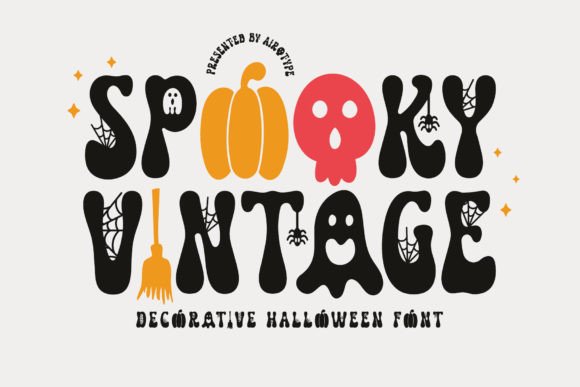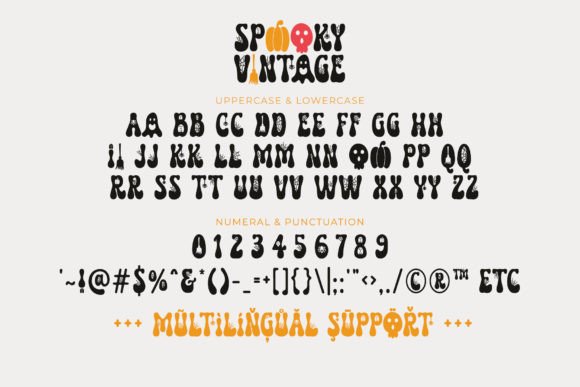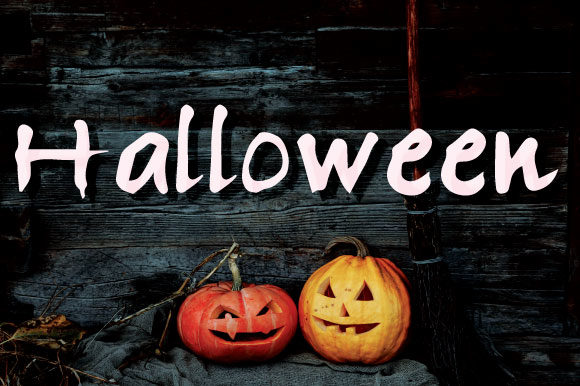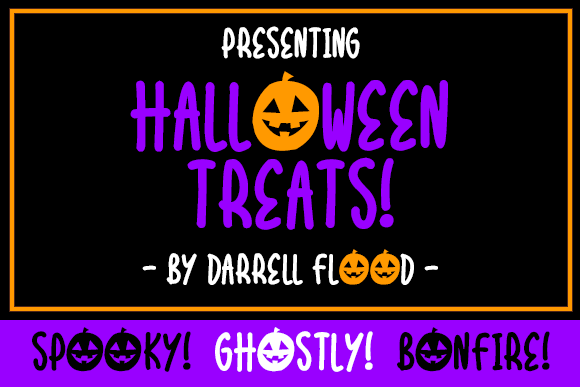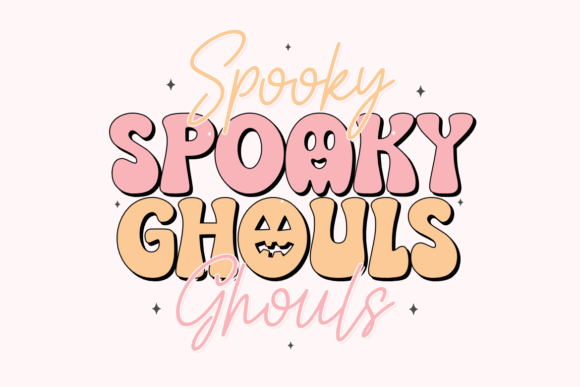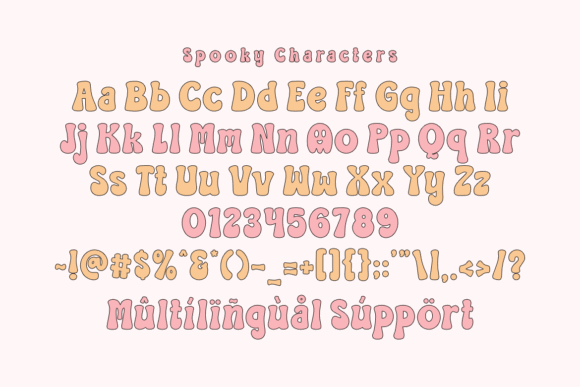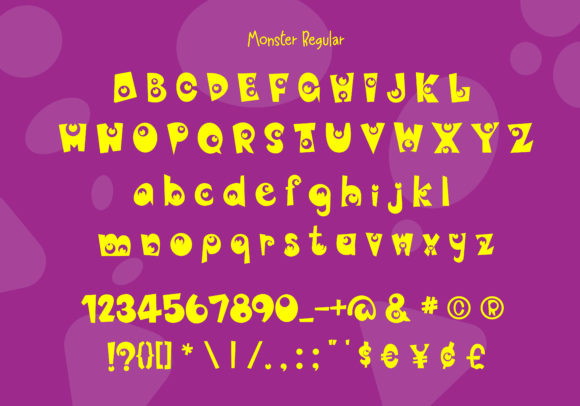
Best Halloween Bubble Letter Fonts for Crafts, Shirts, and Cricut
Halloween bubble letter fonts give spooky projects a friendlier personality than sharp horror typefaces. I look for rounded shapes, thick strokes, readable counters, and playful details that remain clear on shirts, treat bags, classroom signs, stickers, invitations, and social graphics. The best options feel festive without making every word difficult to read.
This roundup mixes true bubble fonts with chunky, groovy, doodled, and rounded Halloween display styles.
My top recommendation is Spooky Bubble because it combines solid and outline bubble letters with built-in Halloween symbols. For retro apparel, Cute Halloween and Spooky Vintage offer rounder groovy shapes. Spooky Buddy is my pick for kid-friendly crafts because its bold uppercase alphabet comes with coordinating Halloween dingbats.
| Spooky Bubble | All-purpose Halloween crafts | Solid and outline display font |
| Spooky Buddy | Kidsโ shirts and classroom projects | Uppercase font with dingbats |
| Boho Spooky | Soft retro headlines | Rounded bubble display font |
| Cute Halloween | Groovy apparel graphics | Retro display font |
| Spooky Vintage | Vintage Halloween posters | All-caps bubbly display font |
| Halloween | Simple bubbly lettering | Display font |
| Halloween Treats | Cartoon-style crafts | Cute Halloween display font |
| Spooky Ghouls Duo | Mixed-type layouts | Chunky display and script duo |
| Monster Eye | Monster-themed kidsโ designs | Chunky display font |
| Blockton Halloween | Bold signs and banners | Block display font |
| Halloween Ghost | Drippy rounded headlines | Halloween display font |
| Halloween by Dedi Art Studio | Quick craft titles | Bubbly display font |
| Bubble | Versatile seasonal lettering | Playful serif font |
| Thick Bubble | Friendly invitations | Hand-drawn display font |
| Chunky Retro | Clean retro layouts | Rounded display font |
| Groovy Chunky | Cheerful Halloween graphics | Retro display font |
| Spooky Font | Decorative October projects | PUA-encoded themed font |
| Monster Halloween | Dripping monster titles | Decorative display font |
| Cute Ghost | Whimsical ghost projects | Decorative font |
| Wonky Halloween | Handmade-looking signs | Display font with dingbats |
| The Spooky Time | General spooky crafts | Display typeface |
| Halloween Groovy | Retro October designs | Groovy display font |
| Halloween by Khim08Studio | Y2K-inspired graphics | Bubbly display font |
| Spooky Season | Casual fall captions | Handwritten font |
| Halloween by Color Studio | Colorful alphabet projects | Color and black font |
| Witchcraft Halloween | Coordinated party stationery | Script and display duo |
| Halloween Creative | Vintage distressed graphics | Bold display font |
Best Halloween Bubble Letter Fonts
1. Spooky Bubble
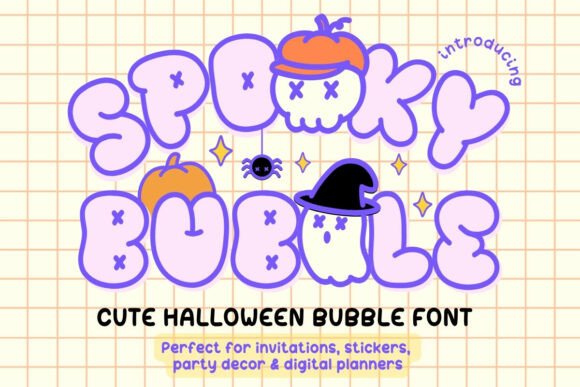
Spooky Bubble is an all-caps Halloween bubble font for makers who want rounded lettering and seasonal icons in one file. It includes solid and outline styles, giving you an easy way to build layered titles, coloring-page text, sticker borders, or contrasting vinyl designs.
This is my strongest all-around pick because the alphabet looks cute before the extra decorations are added. The built-in pumpkins, ghosts, skulls, spiders, and other symbols can save time, though I would use them selectively so a headline does not become visually crowded.
Best for: treat bags, stickers, classroom signs
Key features: solid style, outline style, all caps, Halloween dingbats
2. Spooky Buddy
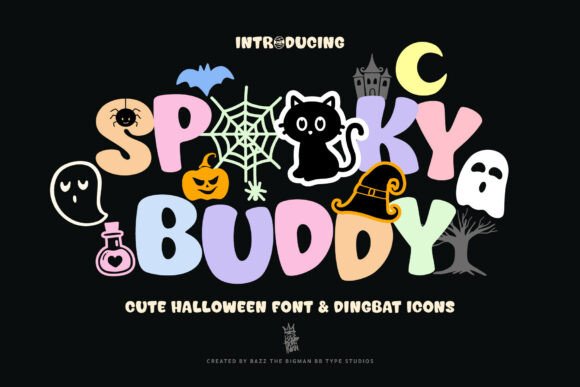
Spooky Buddy is a bold uppercase display font paired with playful Halloween dingbats, making it especially useful for kid-friendly seasonal crafts. Its substantial letters should hold their presence on shirts, tote bags, posters, and labels without relying on thin decorative lines.
I like this option for designs that need coordinated icons without sourcing a separate clipart pack. Lowercase keystrokes map to themed symbols, so check the character guide before composing a project and avoid treating it like a standard mixed-case family.
Best for: childrenโs apparel, party invitations, Cricut crafts
Key features: bold uppercase letters, mapped dingbats, numbers, punctuation
3. Boho Spooky
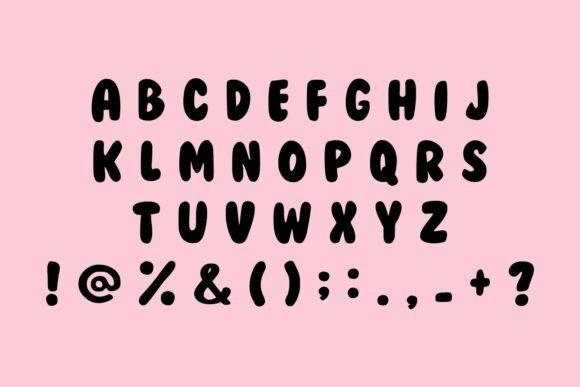
Boho Spooky is a soft, bold bubble font for designers who prefer a mellow retro Halloween look over dripping or jagged horror lettering. Its broad curves suit short headlines, poster titles, social graphics, and boutique-style seasonal branding.
Are outline or solid bubble letters better for Halloween crafts?
u003cstrongu003eSolid bubble letters are generally easier for small vinyl cuts, bold signs, and highly readable shirts, while outline letters are better for layered effects, coloring pages, and dimensional titles.u003c/strongu003e The right choice depends on the project size, material, and amount of detail around the text. Outline fonts may need thicker strokes to remain visible when printed small. For layered vinyl, check that the inner and outer shapes align cleanly. A font such as Spooky Bubble provides both options, letting you compare them before committing to the final production method.